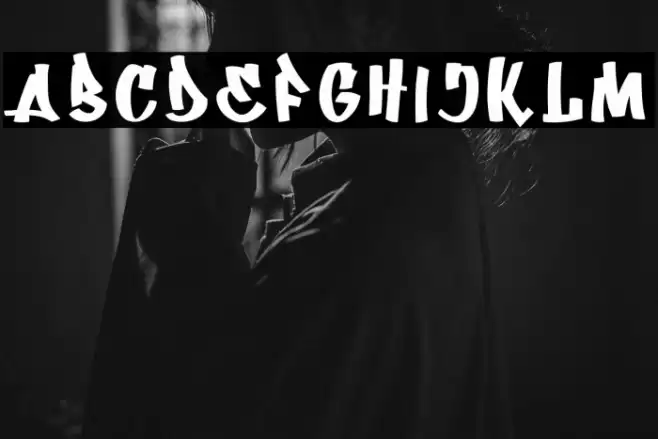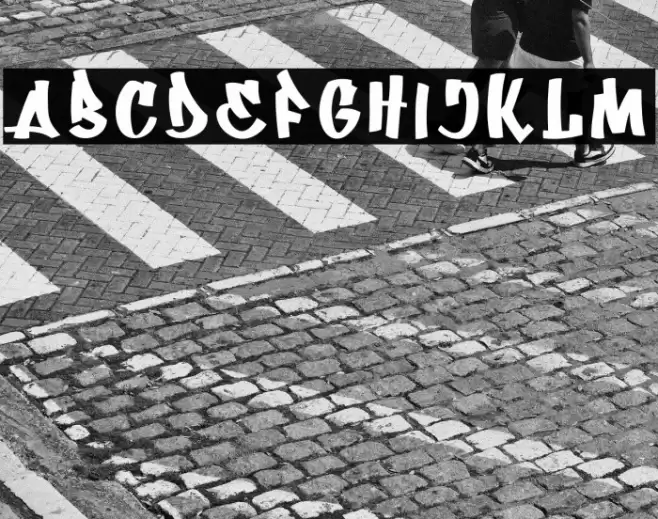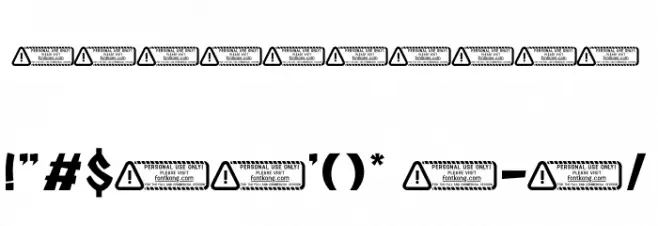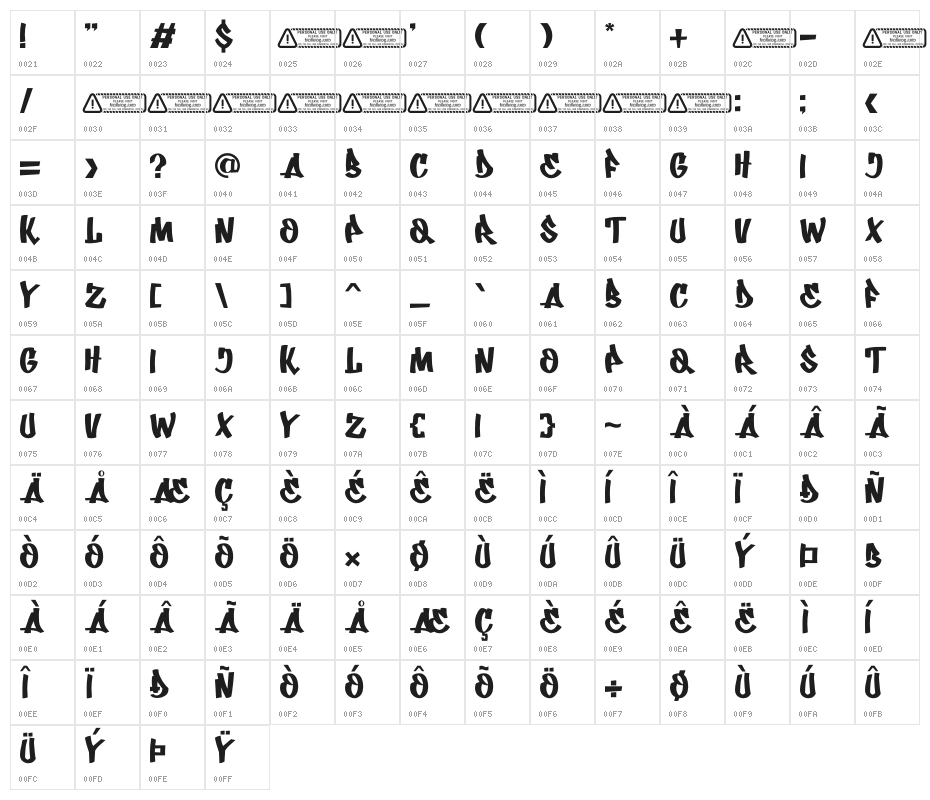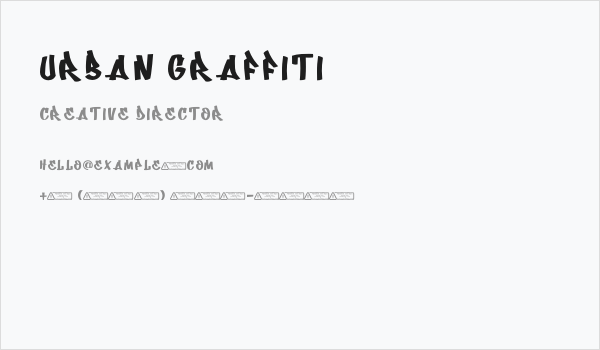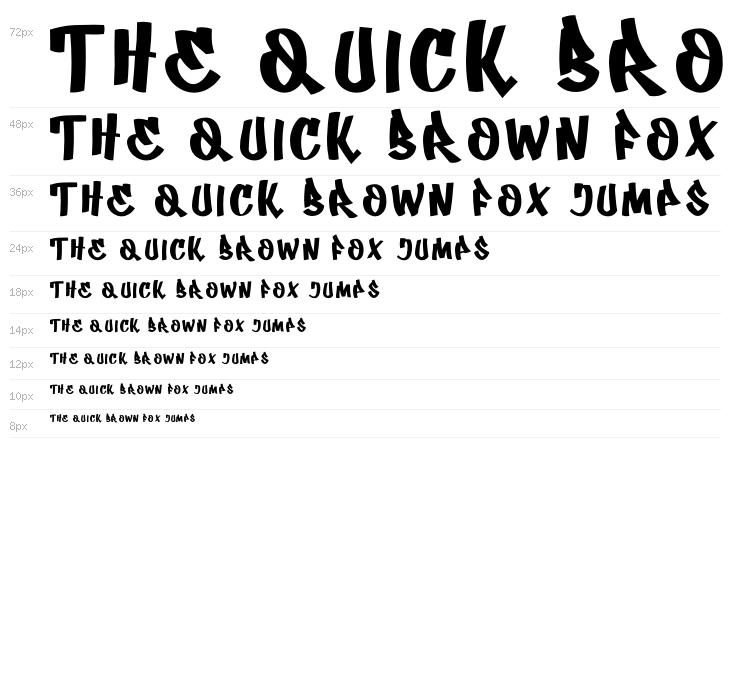
Urban Graffiti Font
Urban Graffiti Description
This font exudes a bold and edgy urban style, reminiscent of graffiti art found in cityscapes. The characters are designed with sharp angles and dynamic curves, giving them a sense of movement and energy. The uppercase and lowercase letters maintain a consistent style, with exaggerated strokes and a playful, rebellious attitude. The numbers and special characters are equally expressive, making them suitable for creative and unconventional designs. This font captures the essence of street art, making it perfect for projects that aim to convey a sense of modernity and urban culture.
A bold, graffiti-inspired font with dynamic curves and sharp angles from Uncategorized fonts.
- Font: Urban Graffiti
- Proposed Projects: Ideal for streetwear branding, music album covers, urban event posters, and graffiti art projects.
- Overall Style: Urban, Modern, Edgy
- Use Case: Logos, Posters, Merchandise